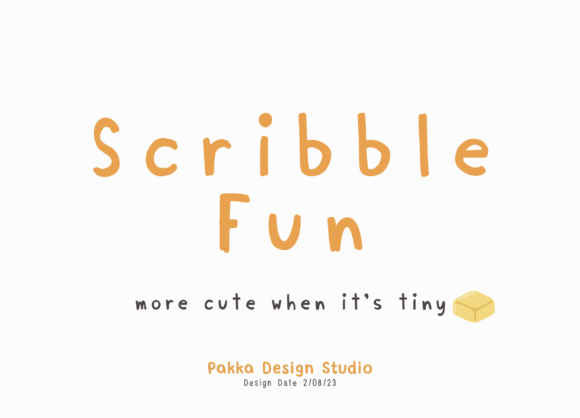
Step into the world of delightful handwritten charm with our enchanting Scribble Fun Font from Pakka Design Studio. Inspired by the magic of bakeries, this font family transports you to a world of sweetness and playfulness.
Let your creativity flourish as you explore the whimsical strokes and curves of Scribble Fun. Perfect for expressing heartfelt notes, short messages, and personal diary entries, this font adds an irresistible touch of charm to any project.
Picture this: a short message like "How you do pancake" adorned with your very own recipe, all handwritten in the adorable Scribble Fun font. It's like having your own personalized bakery sign, filled with warmth and a dash of playfulness.
Embrace the magic of Scribble Fun and let your imagination run wild. Its petite size adds an extra layer of adorableness, making it ideal for small spaces and short messages. From heartfelt letters to personalized cards, this font will leave a lasting impression on everyone who sees it.